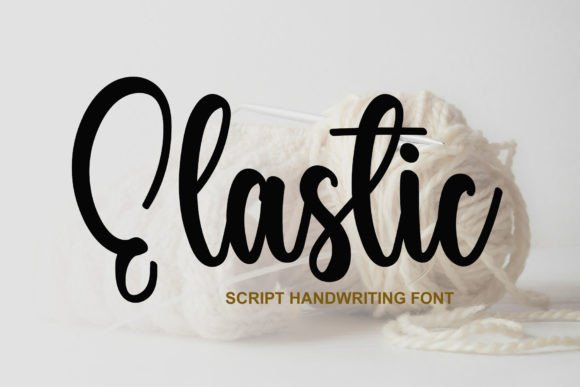
Unleash Your Creativity with the Perfect Handwritten Font
Remember that moment when you were brainstorming ideas for your next design project, and the perfect font just seemed to be out of reach? The words were flowing, the concept was brilliant, but the font just didn’t seem to fit. You knew you needed something special, something that would elevate your creation and make it truly stand out.
That’s where the Elastic Font comes in – a modern and friendly handwritten font that’s designed to bring your ideas to life. Crafted with precision and attention to detail, this versatile font is perfect for any project, from elegant invitations to playful social media graphics. Whether you’re a seasoned designer or just starting out, the Elastic Font is an invaluable addition to your font library, offering endless possibilities for creativity and self-expression.
Elastic Font Key Features
- Size and Resolution: Elastic Font is resolution-independent, making it ideal for use at any size or resolution, from small text on mobile devices to large signage.
- Editable and Customizable: The font is fully editable, allowing users to adjust the shape, size, and color of the text to suit their needs.
- Dynamic and Interactive: Elastic Font is designed to work seamlessly with dynamic content, making it perfect for use in digital signage, presentations, and interactive applications.
- Multi-Lingual Support: The font supports multiple languages, making it a versatile option for use in a wide range of applications.
- Extensive Character Set: Elastic Font includes a comprehensive set of characters, including letters, numbers, symbols, and glyphs, ensuring that users have everything they need to create professional-looking text.
Elastic Font Review
I’ve been experimenting with the Elastic Font, and I must say it’s a unique tool. Here’s my honest take on it.
- Customizable flexibility: The Elastic Font allows you to adjust the font’s width and height to fit your design needs. It’s a game-changer for creating responsive designs.
- Highly customizable: The font is highly customizable, making it suitable for a wide range of design applications.
- Unique aesthetic: The Elastic Font has a distinctive look that can add an interesting touch to your designs.
- Learning curve: The Elastic Font has a unique syntax, which can be challenging to learn for beginners.
- Compatibility issues: I encountered some compatibility issues with certain design software and platforms.
- Not ideal for body text: While the Elastic Font is great for headings and titles, it may not be the best choice for body text due to its unique width and height.
Overall, the Elastic Font is a versatile tool that can add a touch of creativity to your designs. While it has some limitations, its customizable flexibility and unique aesthetic make it worth considering for certain projects. With some practice and patience, you can master the Elastic Font and unlock its full potential.
Tips for Getting the Most Out of Elastic Font
To get the most out of Elastic Font, experiment with different font sizes, colors, and styles to create a unique and eye-catching design. You can also use Elastic Font in combination with other design elements to add texture and interest to your design.
Elastic Font is commonly used in digital design, such as logos, branding, and marketing materials. It can also be used in print design, such as business cards, brochures, and posters. Additionally, Elastic Font can be used in web design, such as website headers, footers, and navigation menus.